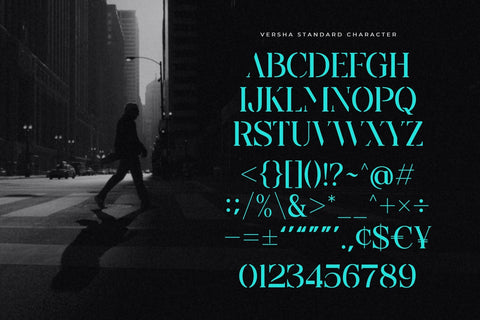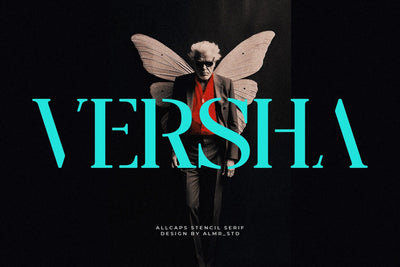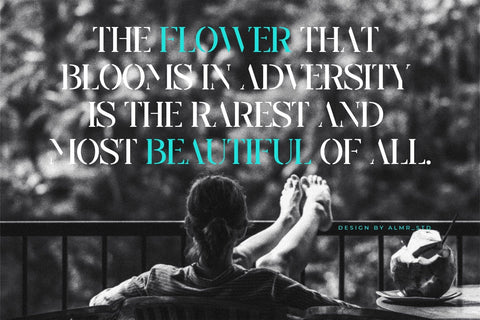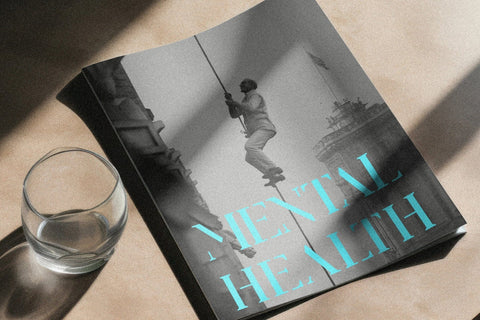
Versha - Stencil Serif Font
Introducing Versha - Stencil serif font. Versha is a stencil, minimalis & retro serif font, This type of font is very suitable for your various needs such as branding projects, logos, social media posts, advertisements, labels, product packaging, photography, wedding designs, watermarks, invitation product designs, stationery, and any project.